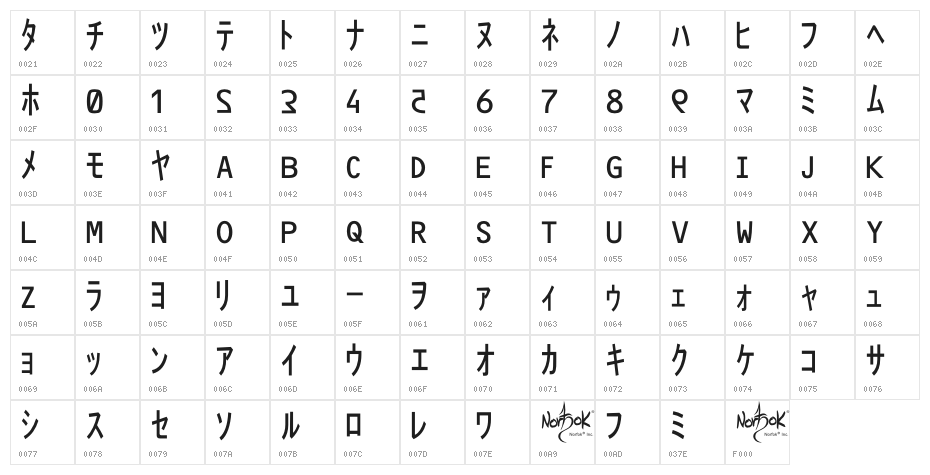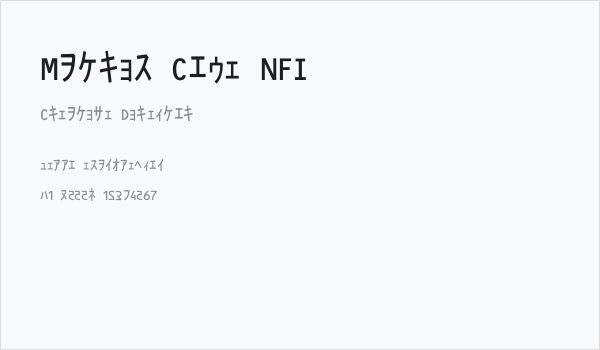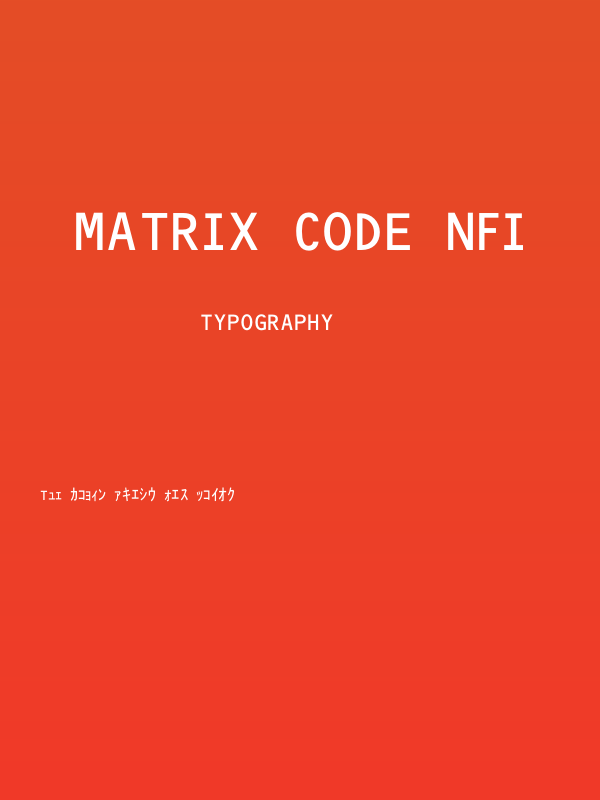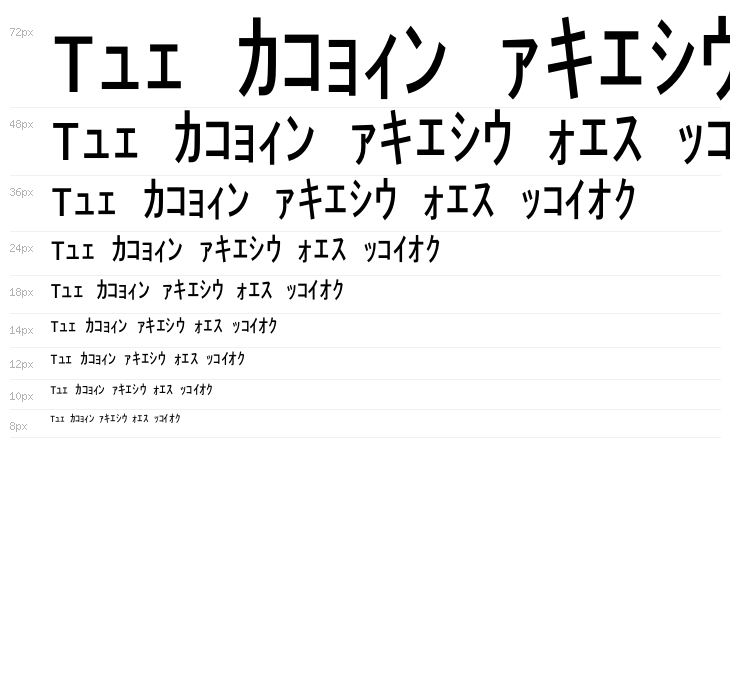
Matrix Code NFI Font
Matrix Code NFI Description
This font presents a clean and modern aesthetic with a focus on clarity and simplicity. The characters are uniformly structured, offering a balanced and consistent appearance across both uppercase and lowercase letters. The numerals are distinct and easily readable, making them suitable for various applications. The overall design is straightforward, with minimal embellishments, emphasizing functionality and legibility. The inclusion of Japanese katakana characters adds a unique, multicultural element, broadening its applicability in diverse contexts.
| Use Case | Headlines, Body text, Digital interfaces |
| Proposed Projects | Ideal for digital interfaces, branding, signage, and any project requiring a modern, multicultural touch. |